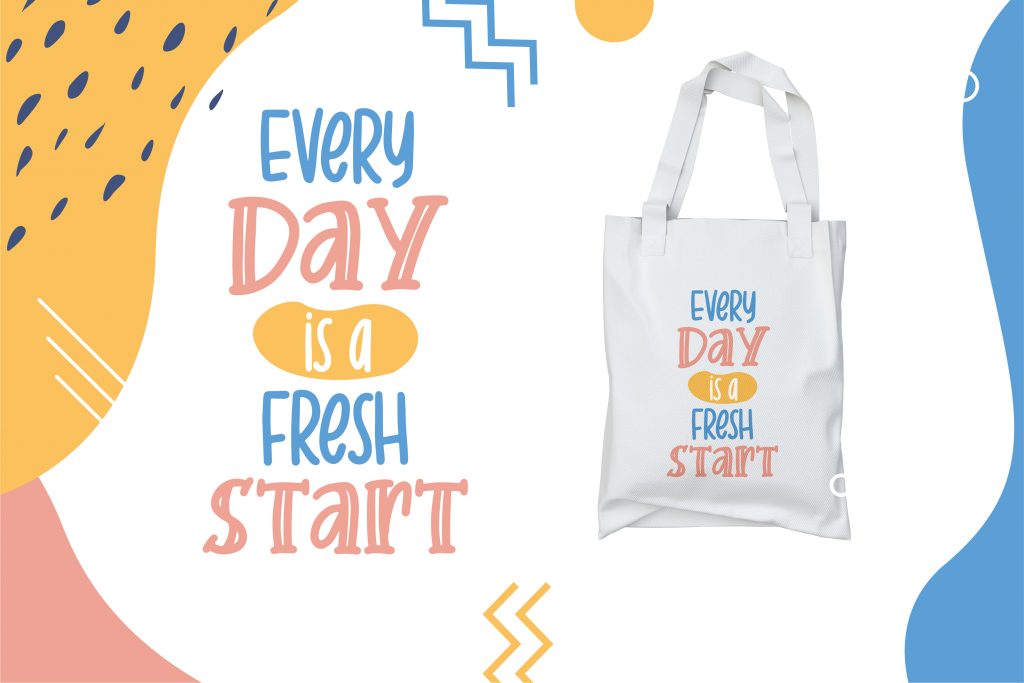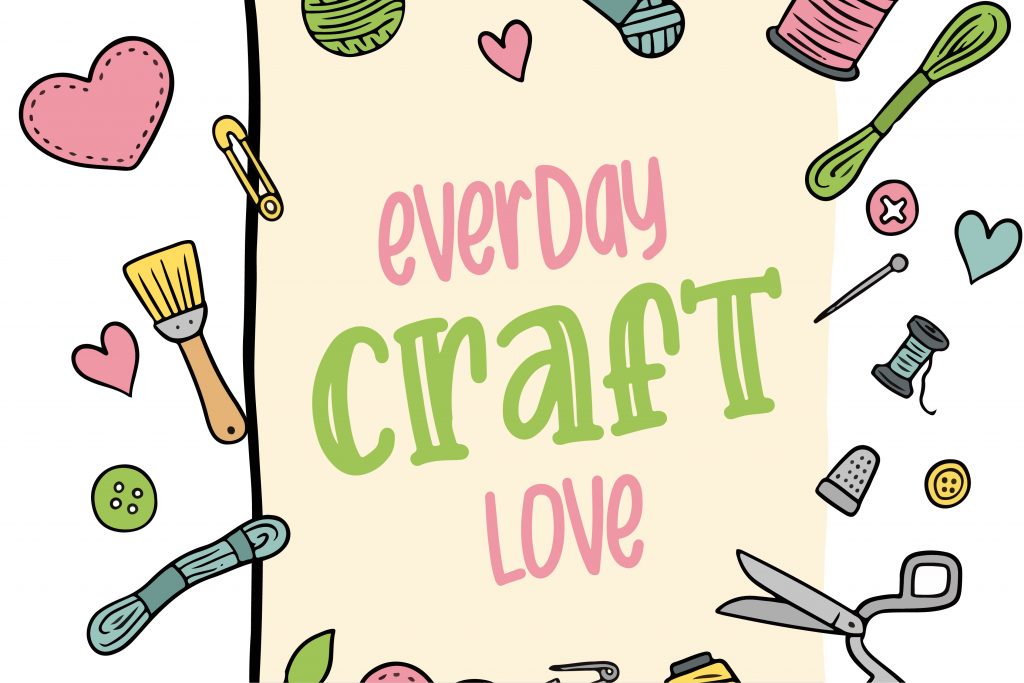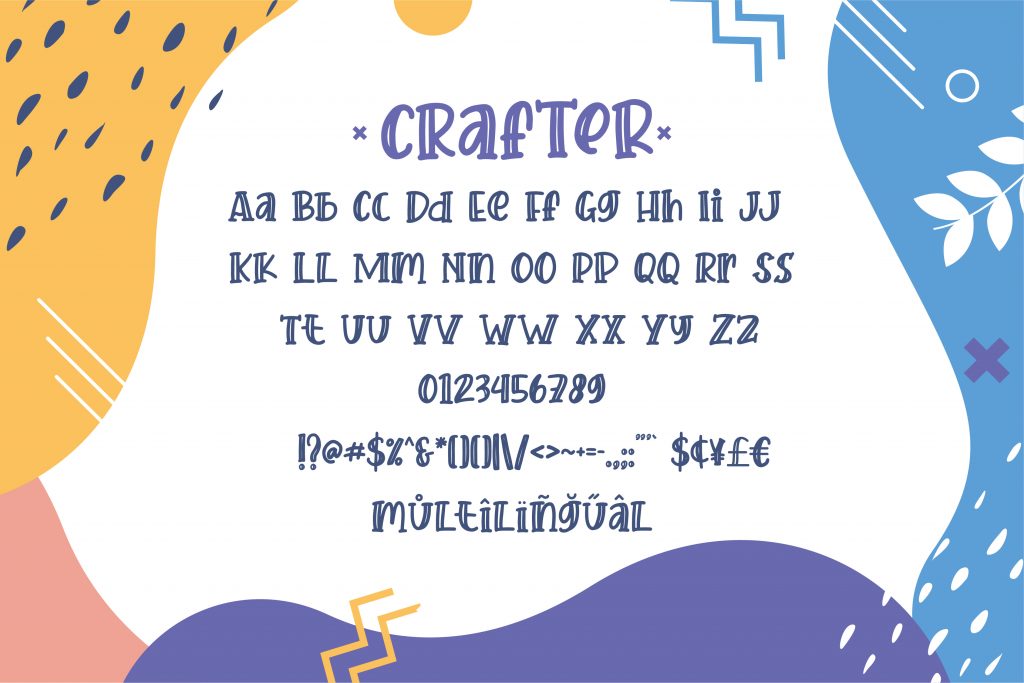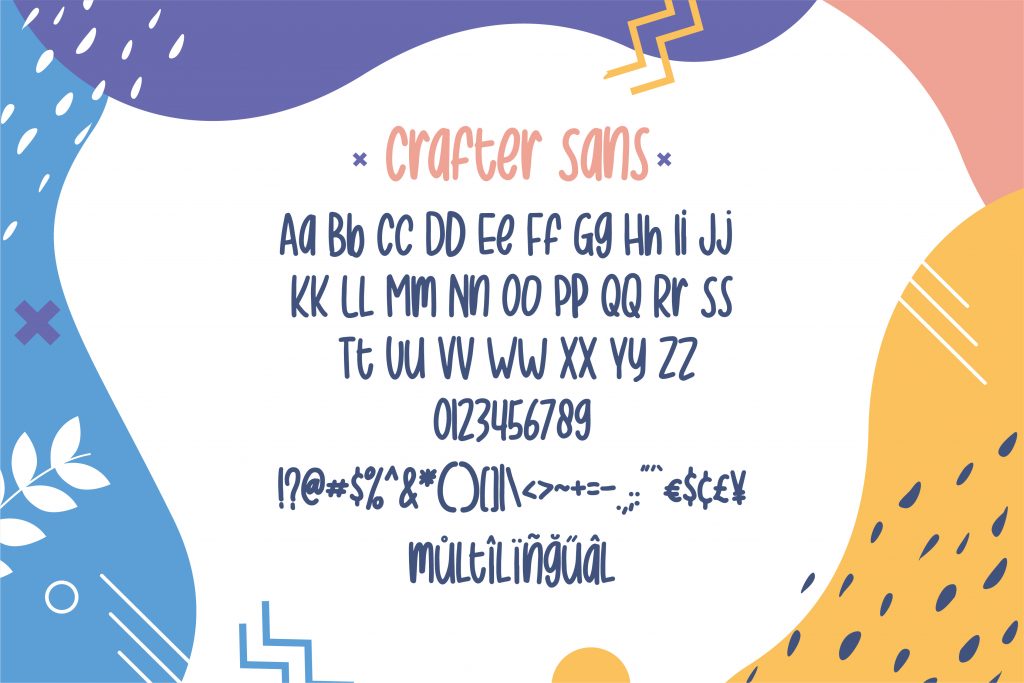
Crafter – Font Duo
Timeless typographic style made to elevate logos, marketing visuals, digital content, and stylish print projects.
• Multilingual Support
• Modern Logo Font
Hello Crafter!
Say hello for our best seller “ Crafter Font Duo “ with Natural Handwritten Artistic Style,
this is perfect for branding, logos, packaging, masterheads and more.
• Multilanguange